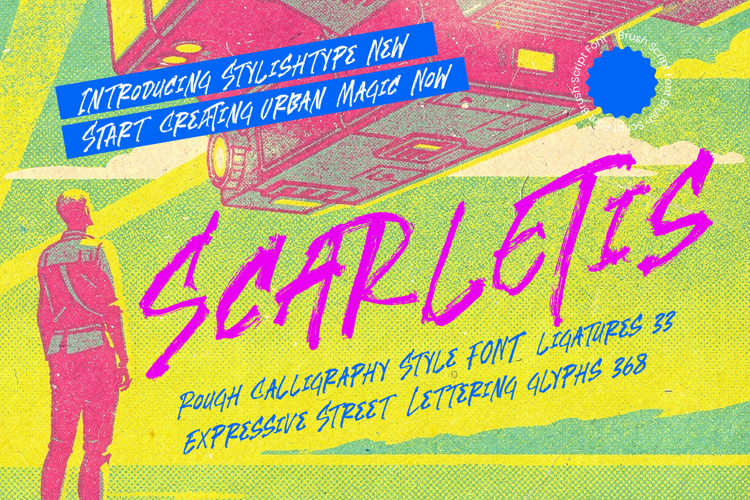
Scarletis - Rough Calligraphy Style Font
Scarletis introduces a new wave of urban magic, designed to inject raw energy and unrefined character into your digital canvas. It is a powerful typographic tool for creators who refuse to blend in and demand a visual voice that screams with authenticity.
Inspired by the gritty textures of metropolitan street art and the fluid motion of high-speed lettering, this font captures the essence of late-night creative sessions. The jagged edges and weathered brush strokes tell a story of rebellion and the rhythmic pulse of city life in every single glyph.
This typeface delivers an undeniable branding impact that works as a high-octane editorial font for any project requiring a sharp edge. Even when paired with a clean modern serif display or used within a luxury typography layout, its high-contrast serif inspired terminal shapes offer a rebellious alternative to standard aesthetic choices.
While the current modern serif trend favors minimalism, this typeface provides the necessary friction through editorial display fonts that prioritize texture. It stands at the forefront of character-driven typography, allowing designers to create layouts that feel tangible, human, and deeply connected to street culture.
Engineered for high-impact logo design and comprehensive branding systems, this font excels in the world of streetwear and action sports. Its versatility makes it a standout choice for high-fashion editorial work, product packaging, alternative wedding stationery, and edgy fashion lookbooks.
Unlock your creative potential with 33 unique ligatures and a wide range of alternates that provide a truly custom hand-drawn appearance. The font includes 368 glyphs featuring full multilingual support and international characters to accommodate global designs, including expressive swashes for a signature finish.